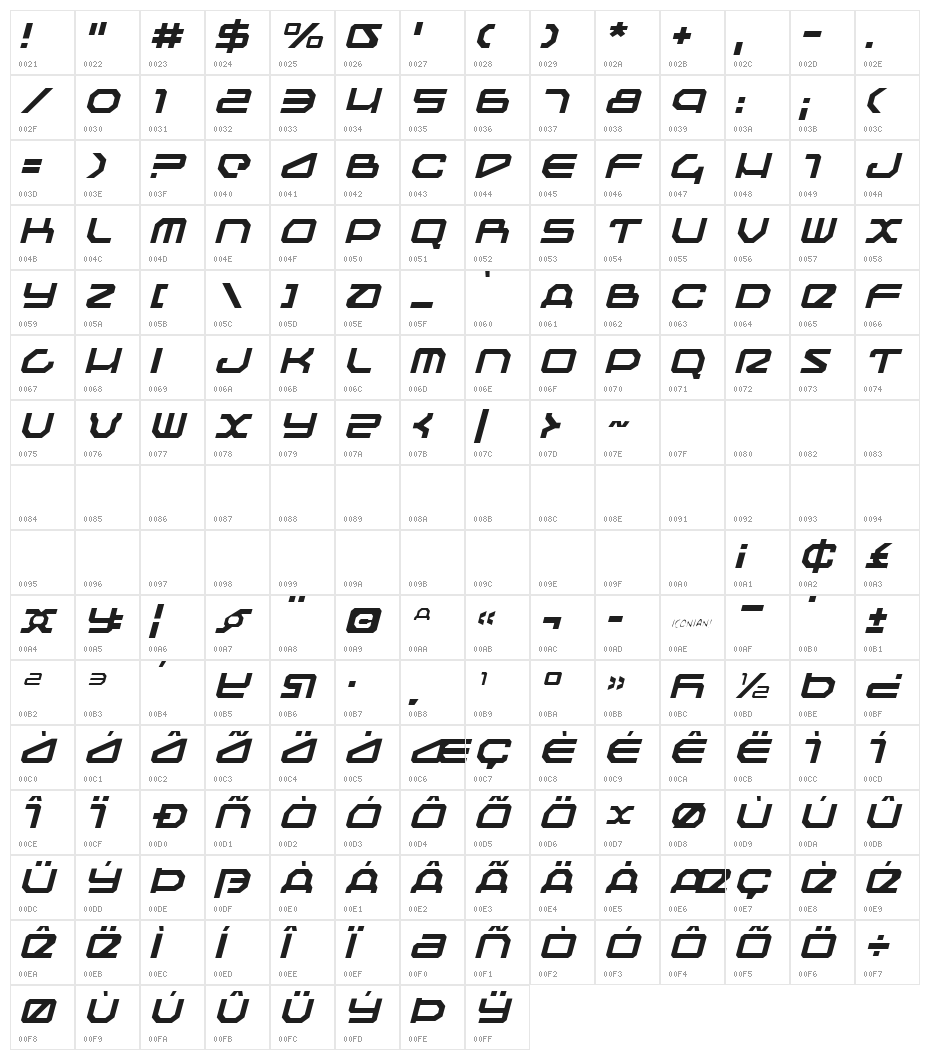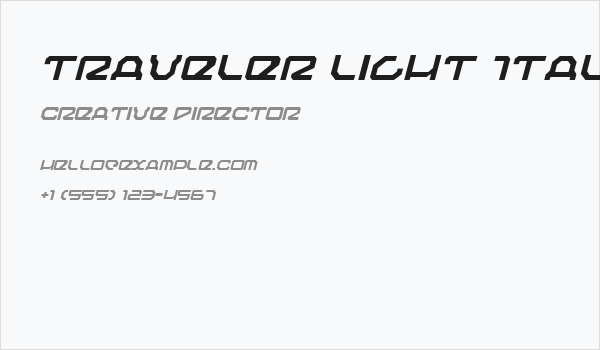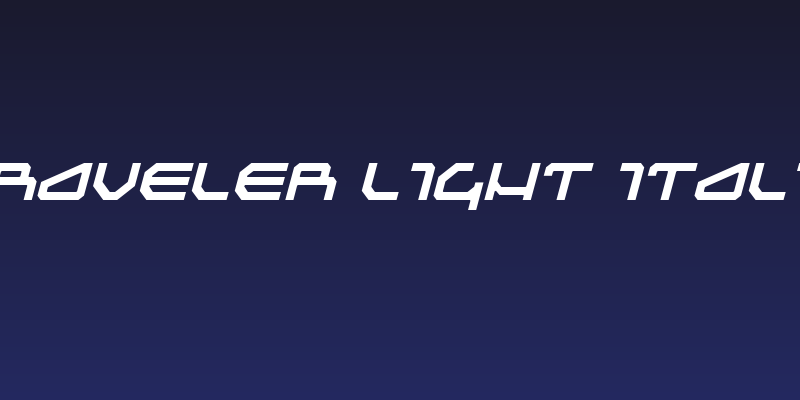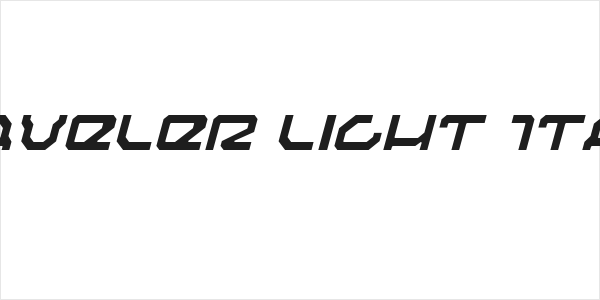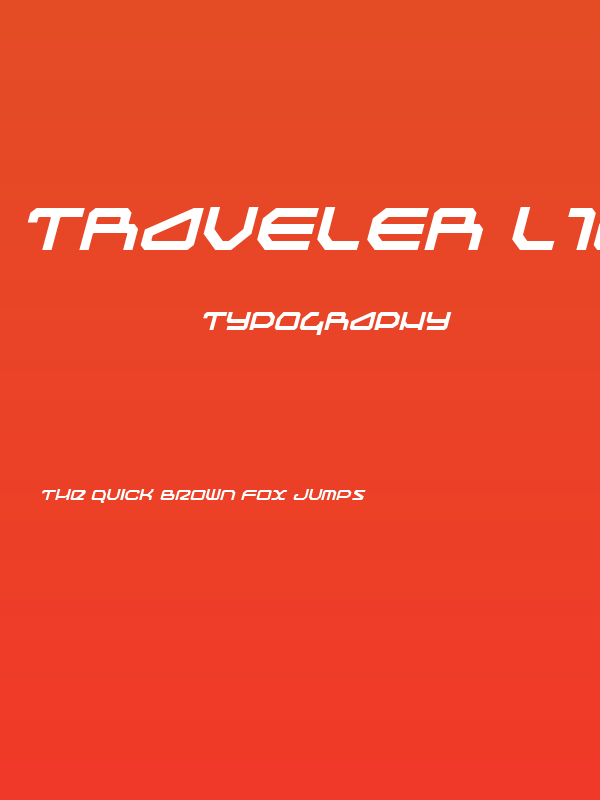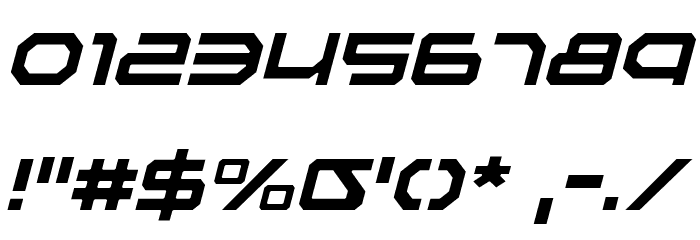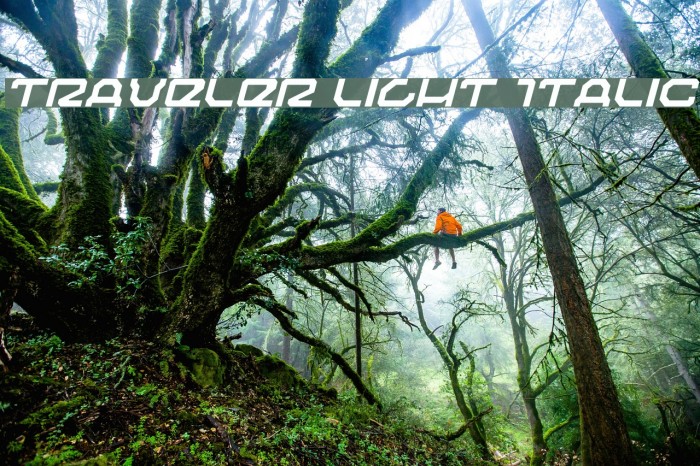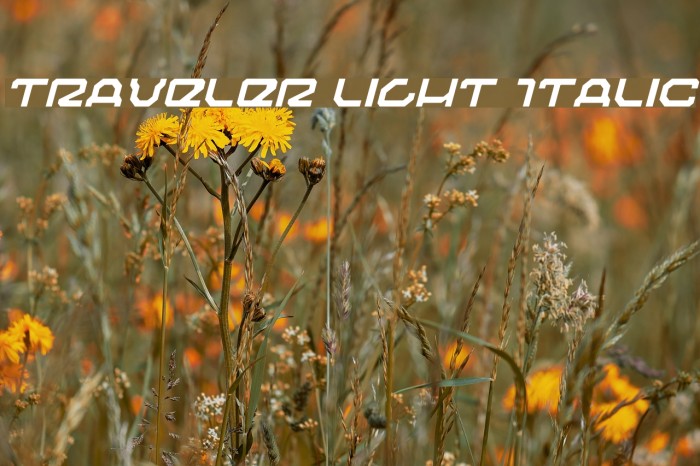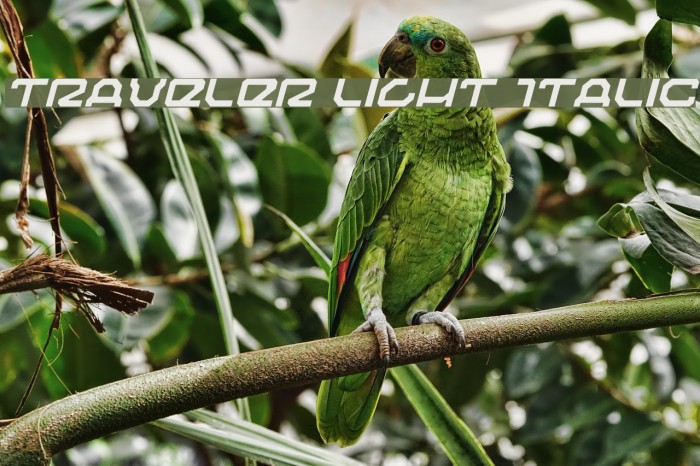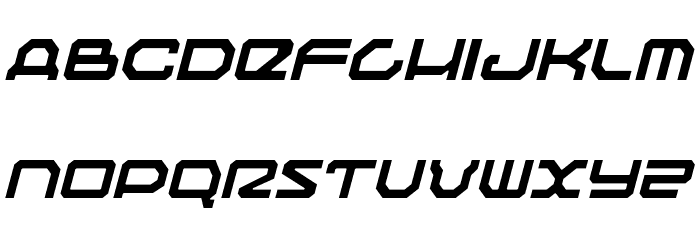
Traveler Light Italic Font
Traveler Light Italic Description
This font features a futuristic and angular design, characterized by its sharp edges and geometric shapes. The letters are slightly italicized, giving a sense of motion and speed. The uppercase and lowercase letters maintain a consistent style, with a unique slant that adds to its dynamic appearance. The numbers and special characters follow the same angular theme, ensuring uniformity across all glyphs. This font's distinct style makes it stand out, ideal for projects that require a modern and edgy look.
| Proposed Projects | Ideal for sci-fi themed designs, technology branding, video game titles, and modern advertising. |